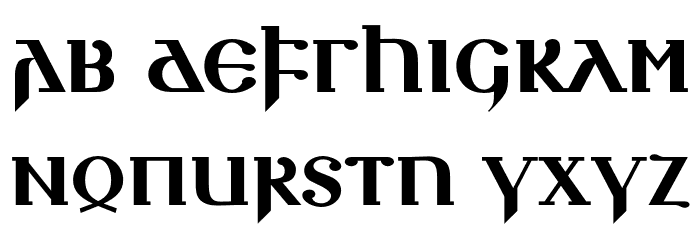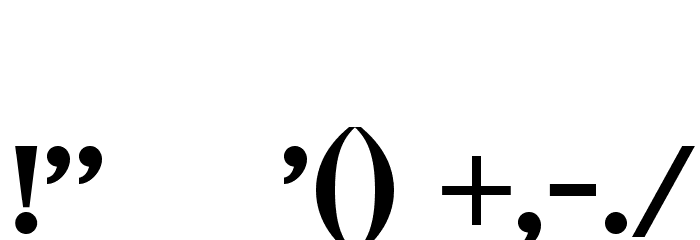
Silubr Font
This font features a distinctive blend of traditional and modern elements, characterized by its bold, angular strokes and sharp serifs. The uppercase letters exhibit a strong presence with their geometric forms and pronounced serifs, while the lowercase letters maintain a consistent style that complements the uppercase. The numerals are equally bold, with a uniform width that ensures readability. Special characters are designed with the same attention to detail, providing a cohesive look across all glyphs. The overall design is reminiscent of Gothic or Blackletter styles, yet it incorporates modern touches that make it suitable for contemporary use.
A bold, angular font with sharp serifs and a modern Gothic influence.
- Proposed Projects: Ideal for branding, logo design, posters, and any project requiring a strong, impactful typeface.
- Overall Style: Modern Gothic